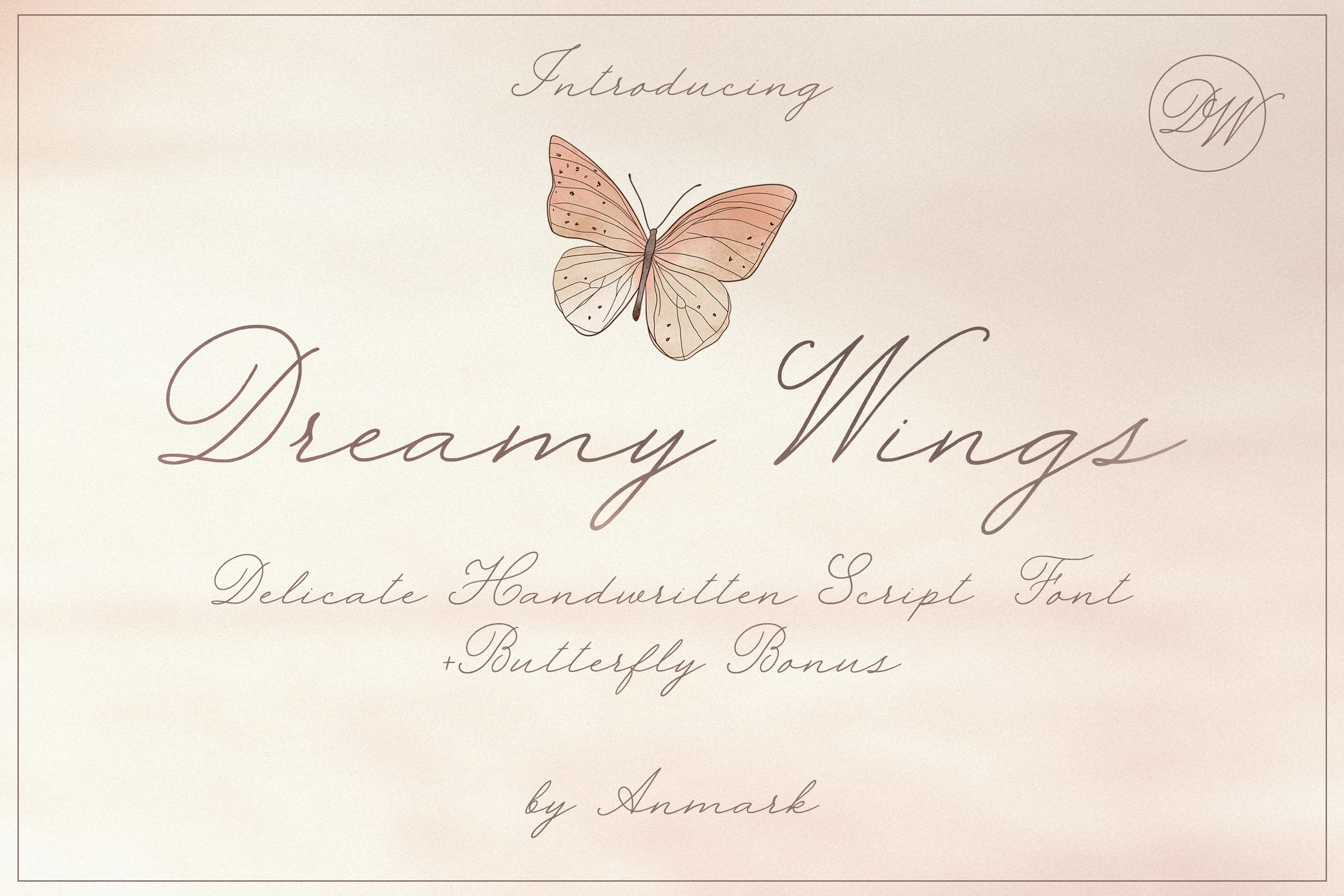
Dreamy Wings. Vintage Wedding Font
Introducing Dreamy Wings, a delicate handwritten script font that exudes a touch of vintage charm. This beautifully crafted typeface is perfect for creating elegant wedding invitations, monograms, and bespoke logos. With its flowing lines and graceful curves, Dreamy Wings adds a romantic flair to any design project.
This font features a wide range of languages - Spanish, German, French, Italian, Portuguese, Swedish, Norwegian, Danish, Finnish, and more (ÁÀÂÄÃÅÆĆÇÐÉÈÊËÍÌÎÏŁÑÓÒÔÖÕØŒŚÚÙÛÜÝŸŹŻÞ áàâäãåąæćçðéèêëęíìîïłńñóòôöõøœśúùûüýÿźżß).
In addition to the exquisite font, you'll receive a bonus set of 7 PNG butterflies and 9 patterns, allowing for even more creative possibilities. Use this versatile font for branding, social media graphics, packaging, greeting cards, and any other projects that call for a whimsical and sophisticated touch. Let Dreamy Wings elevate your designs and inspire your creativity!